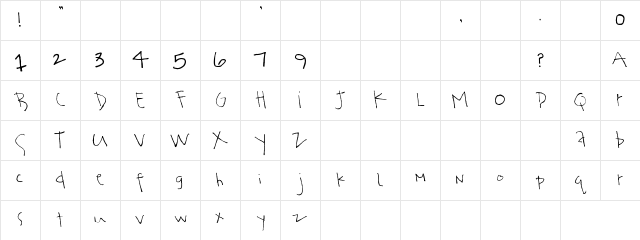
Complete SBC Sticks and Stones glyph index. Displaying only characters natively supported by SBC Sticks and Stones font.
SBC Sticks and Stones is a composed and adaptable typeface that performs quietly and consistently across a wide range of design contexts.